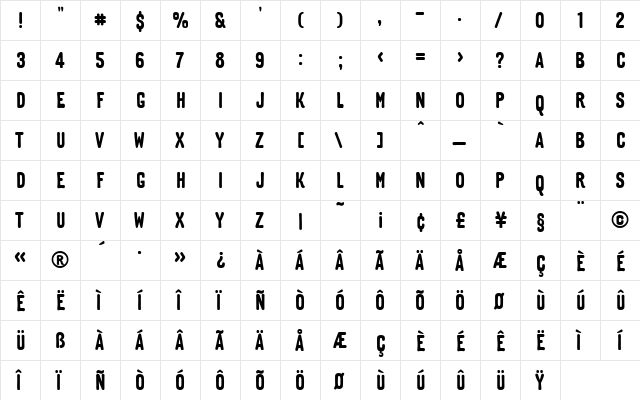
TLMoulinRouge Regular
Design Context for TLMoulinRouge Typeface
TLMoulinRouge is a composed and adaptable typeface that performs quietly and consistently across a wide range of design contexts.